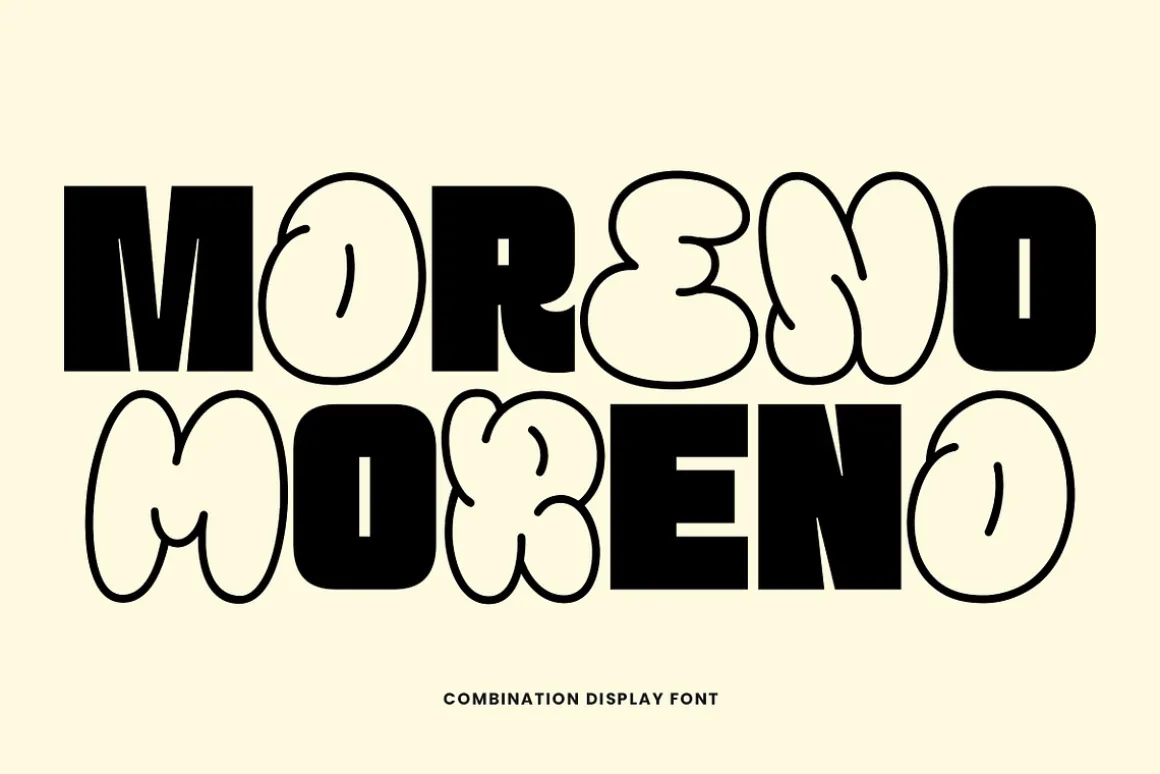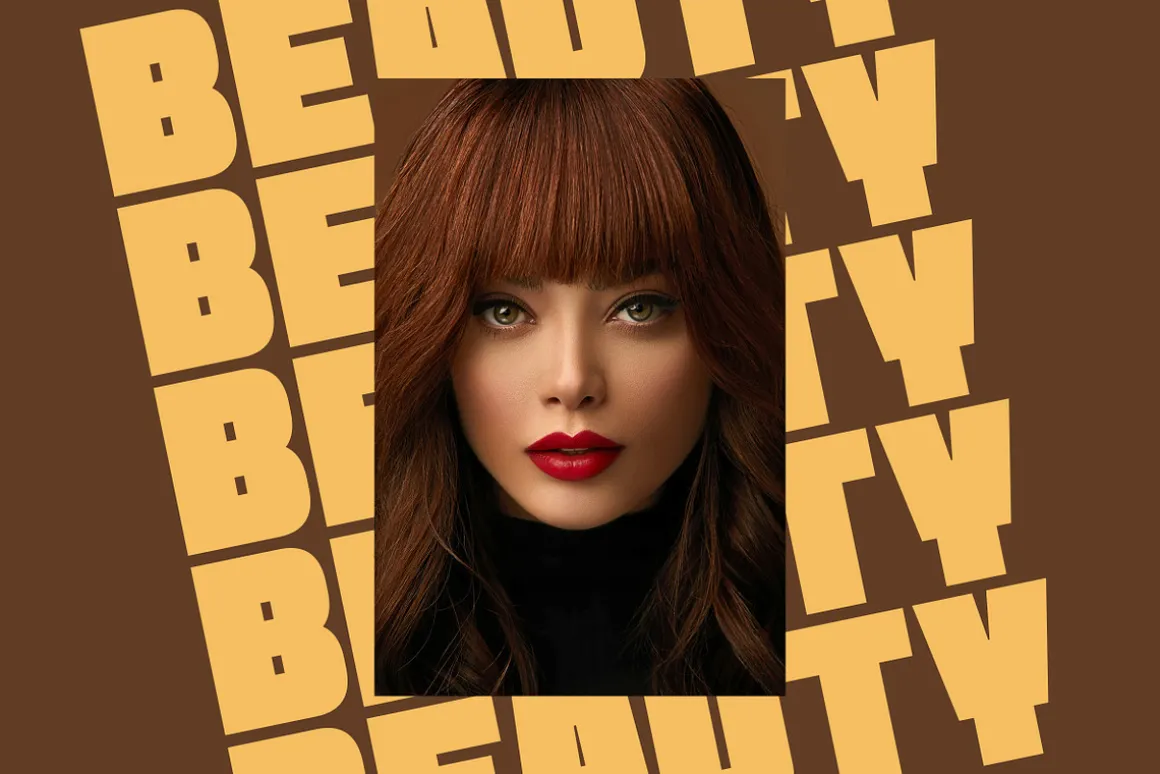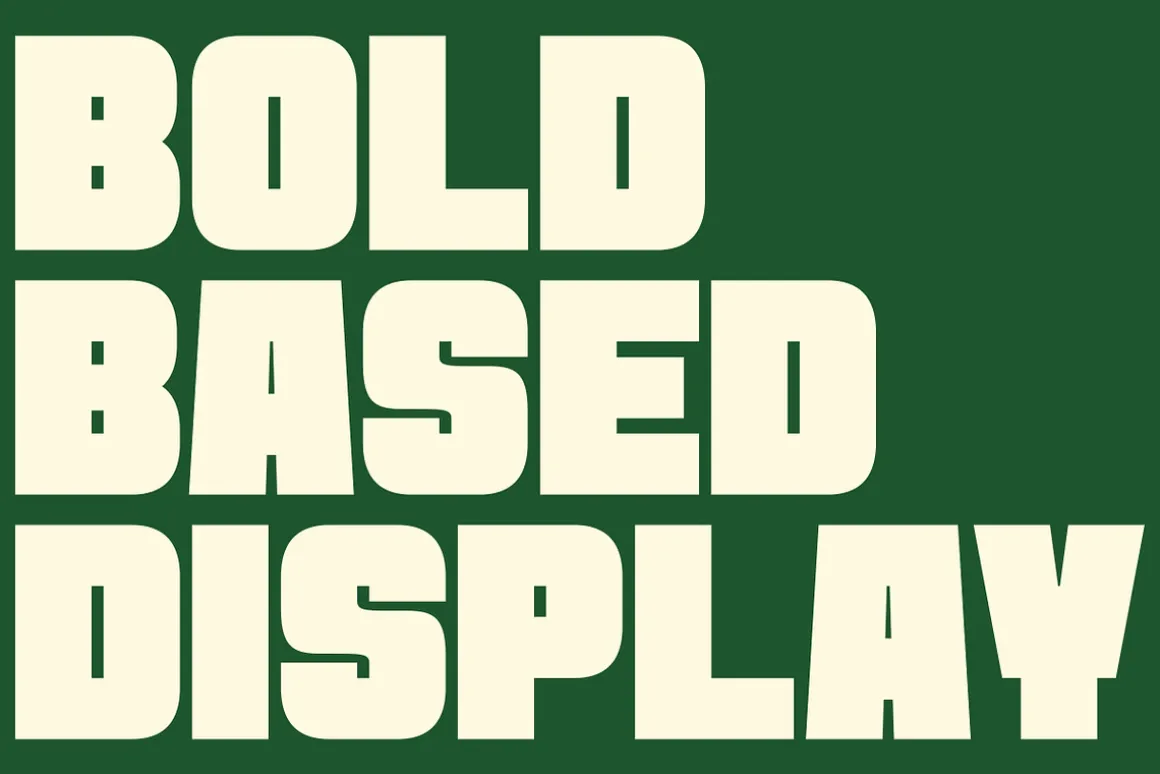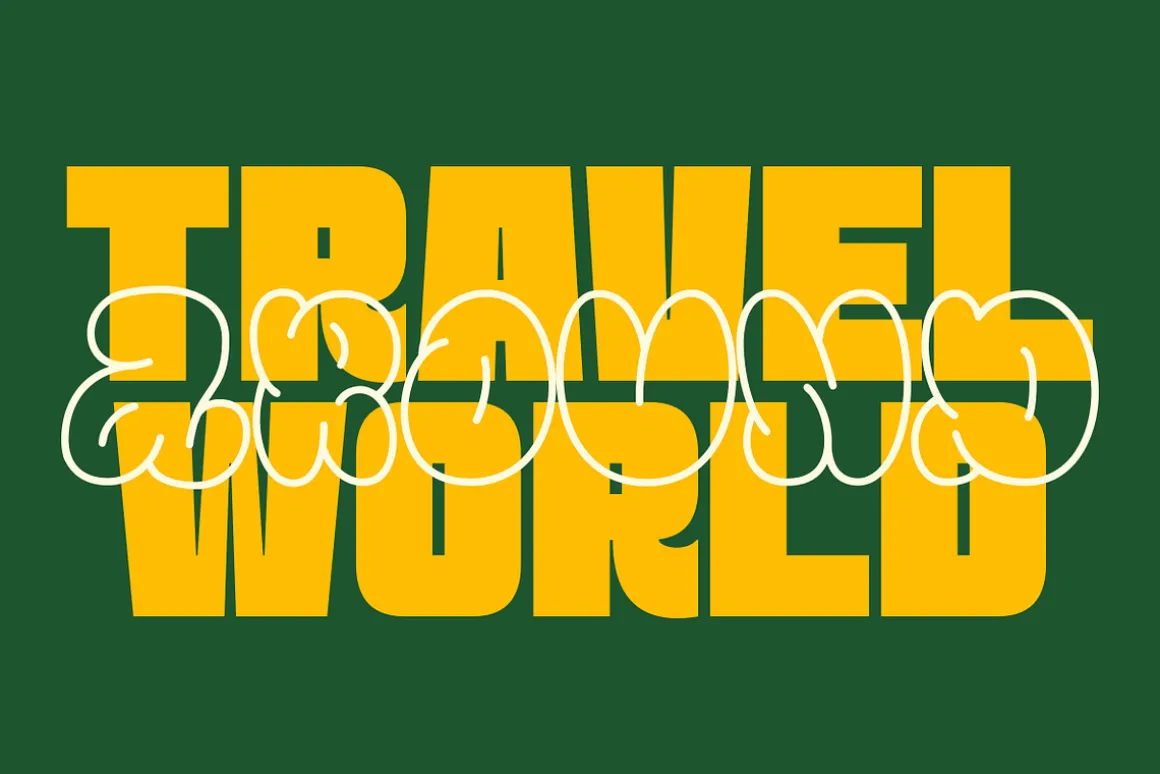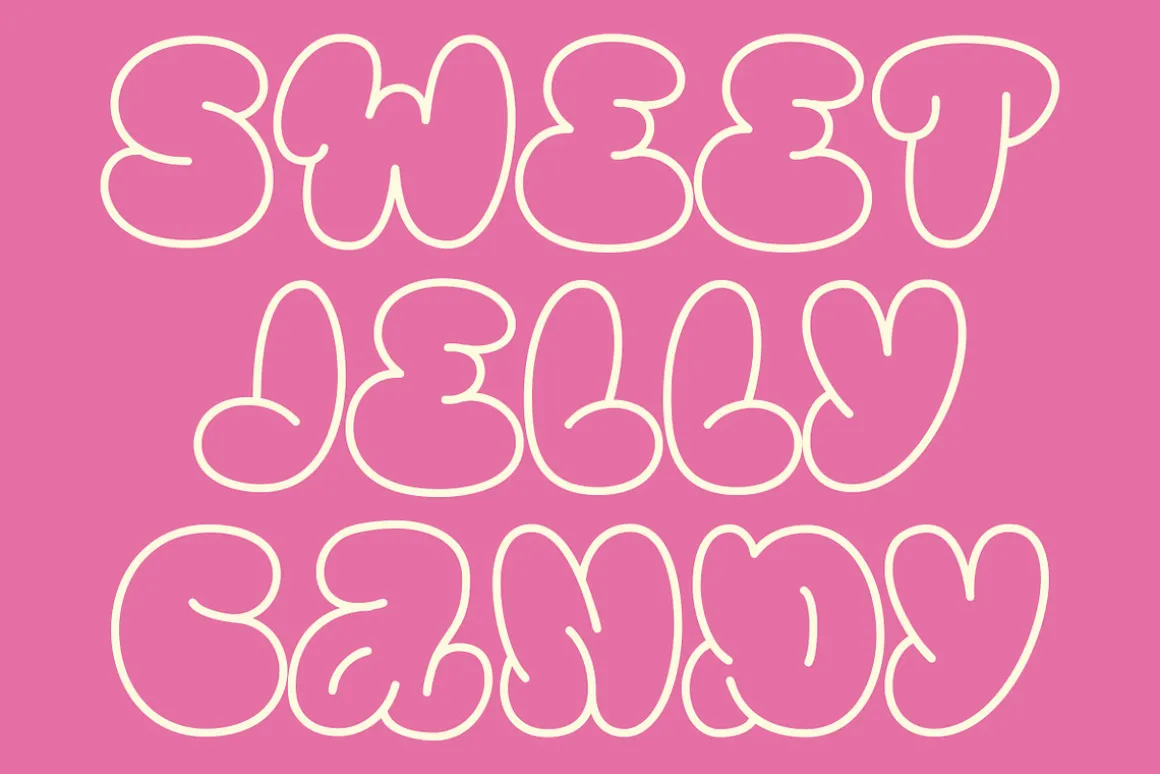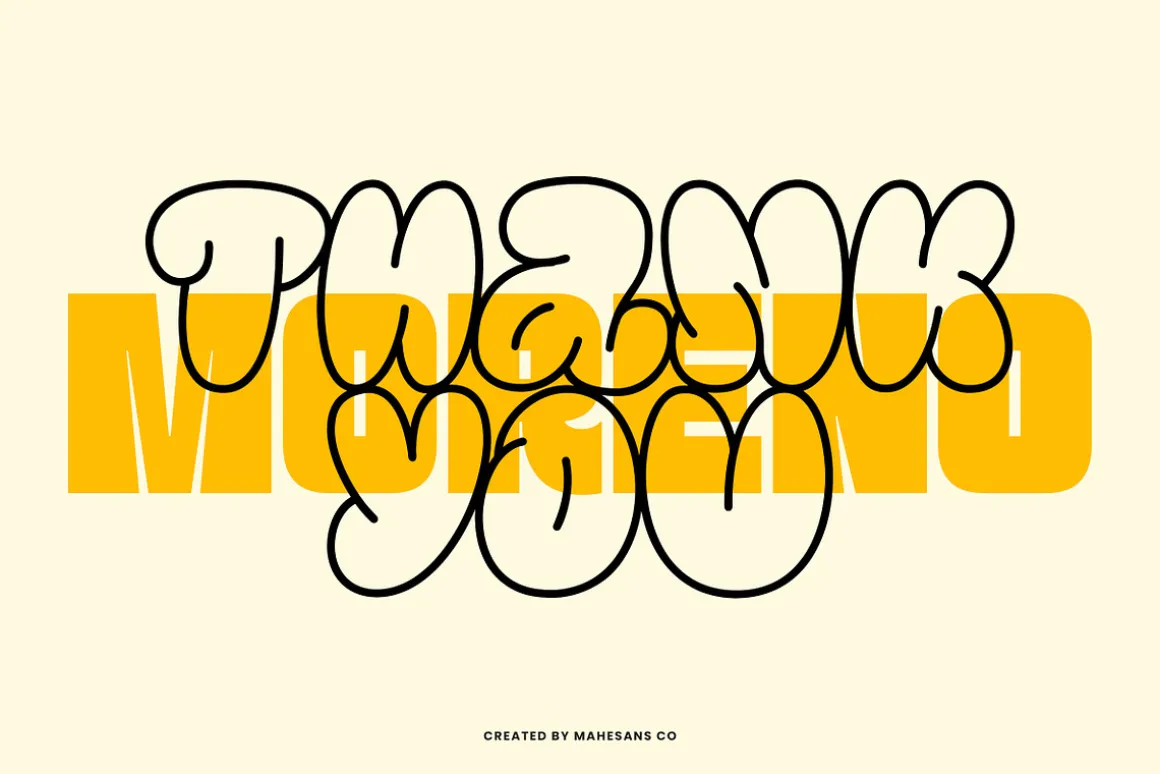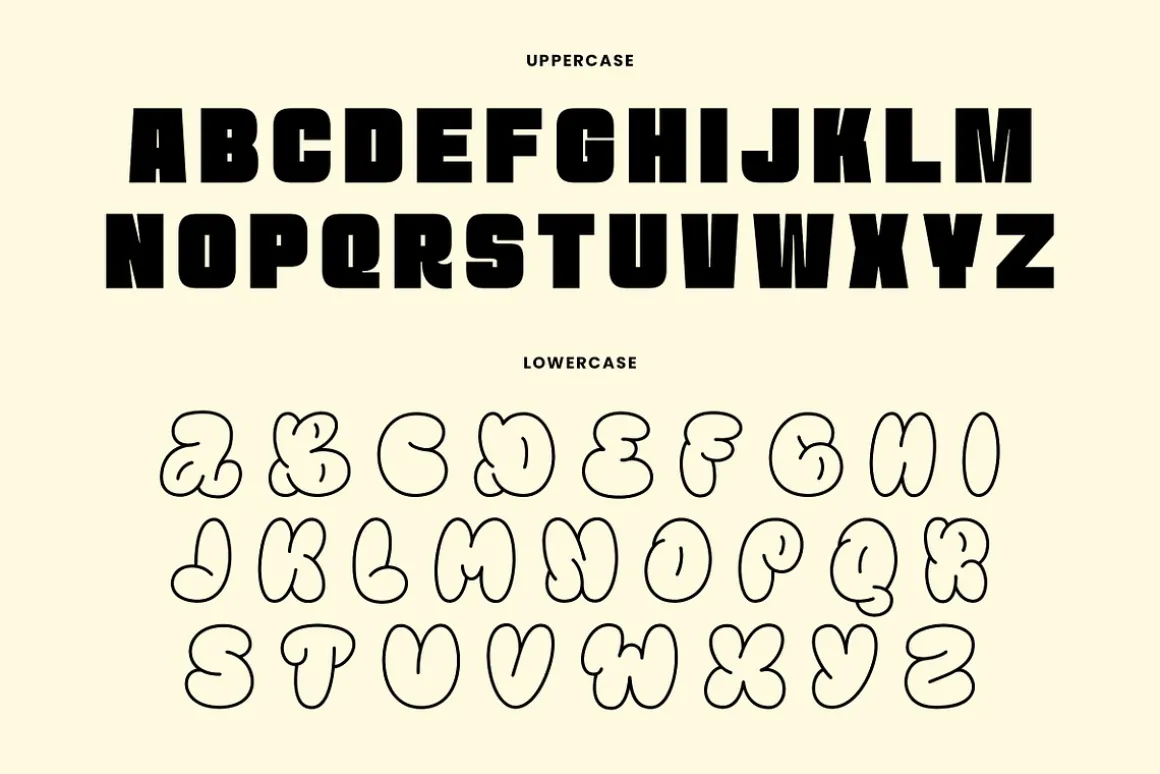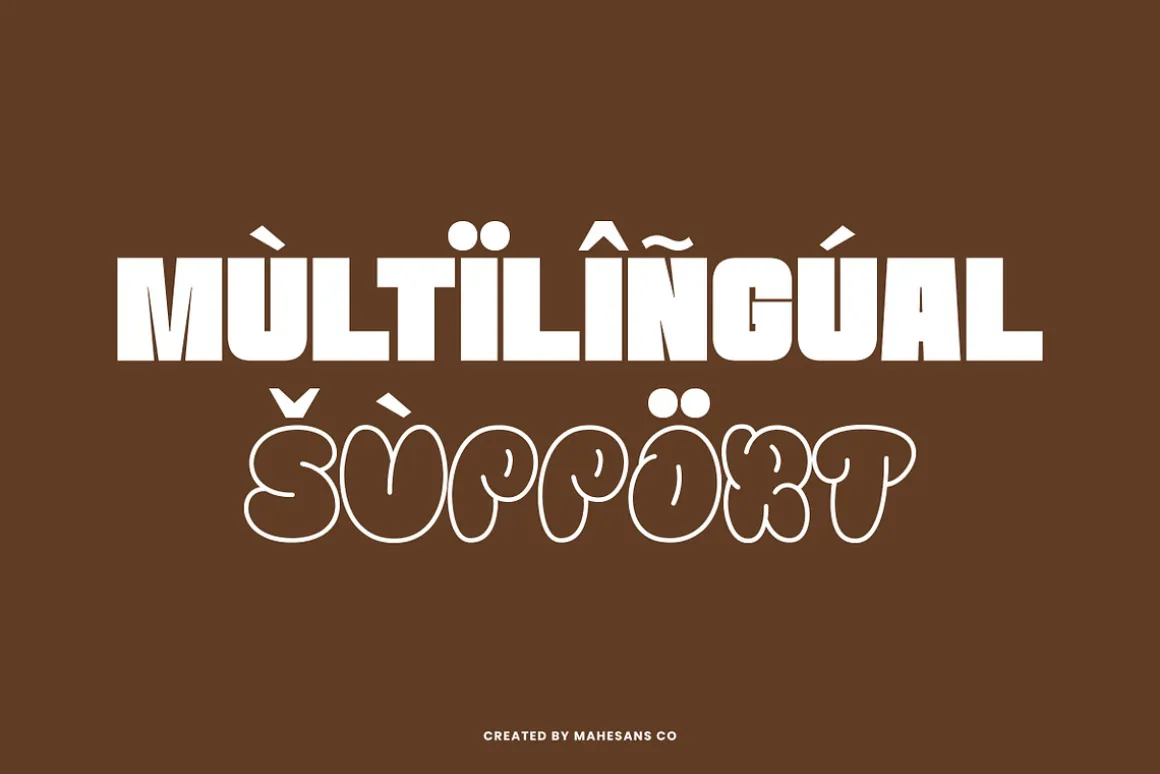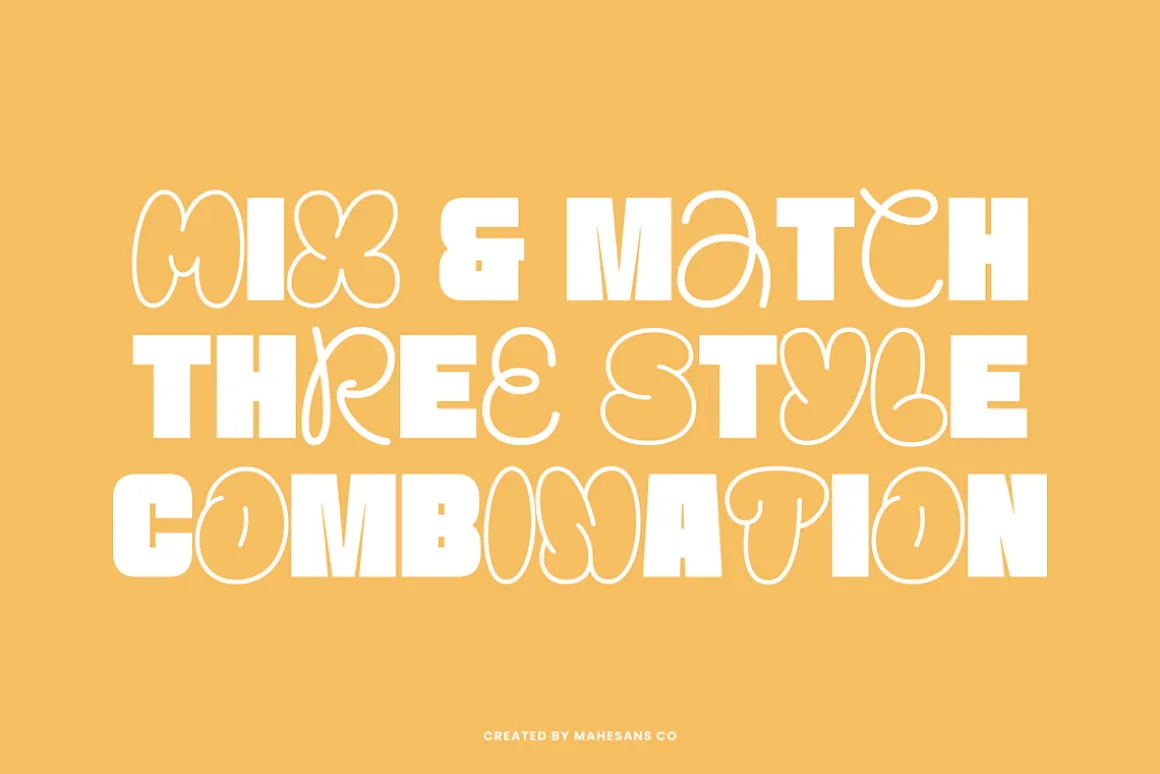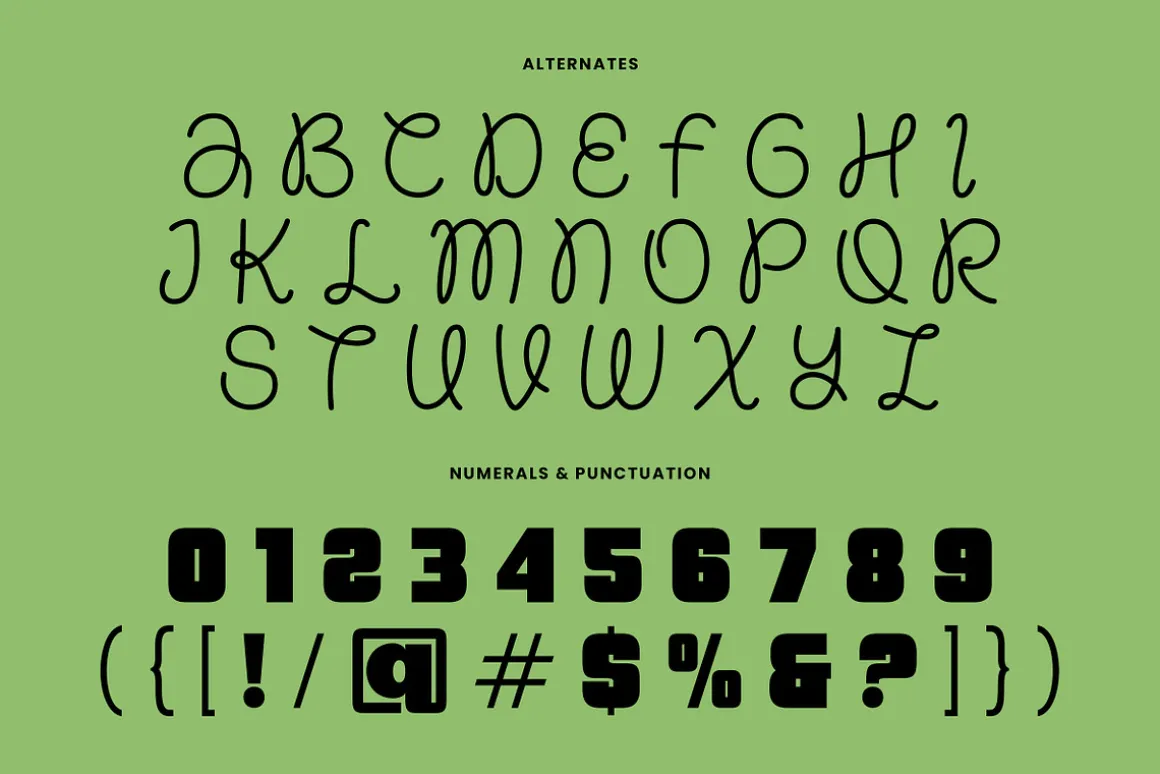
Moreno – Combination Display Font
Moreno is a unique display font that blends three different styles. You can mix & match them seamlessly to create expressive typography that stands out in any design.
Perfect for:
- Posters & flyers
- Fun and catchy branding or logos
- Album covers, merchandise & packaging
- Quote typography & social media graphics
- 3 style combinations (Mix & Match)
- Uppercase & Lowercase
- Numerals & Punctuation
- Ligatures
- Multilanguage
With Moreno, your design will look bold, playful, and full of personality — perfect for projects that need a strong visual impact.